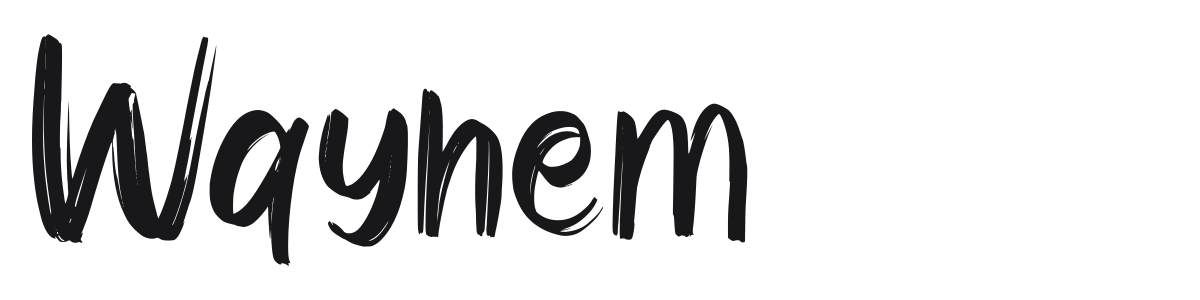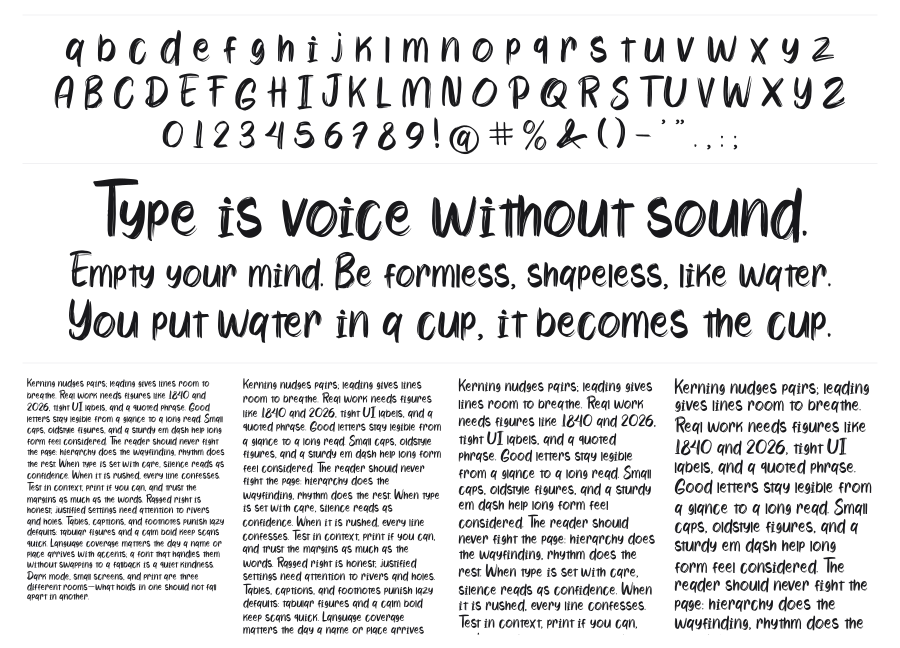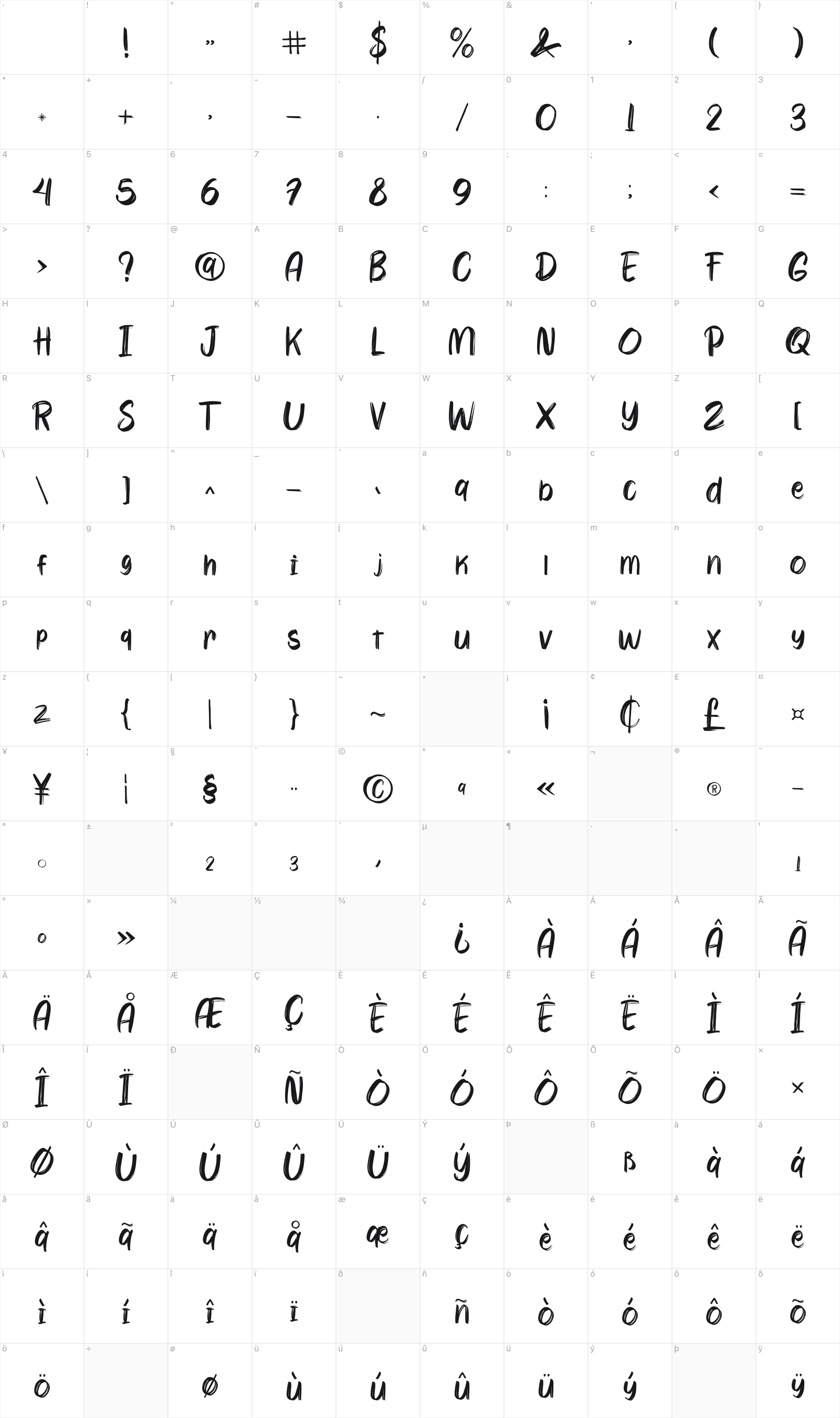
Wayhem
Wayhem is a textured brush script with raw, ink-dragged strokes and genuinely rough edges that feel freshly painted. The casual rhythm and varied stroke weight give it an energetic, handmade personality that stands apart from over-polished brush fonts. Strong at large sizes in logos, posters, and branding where authenticity matters.